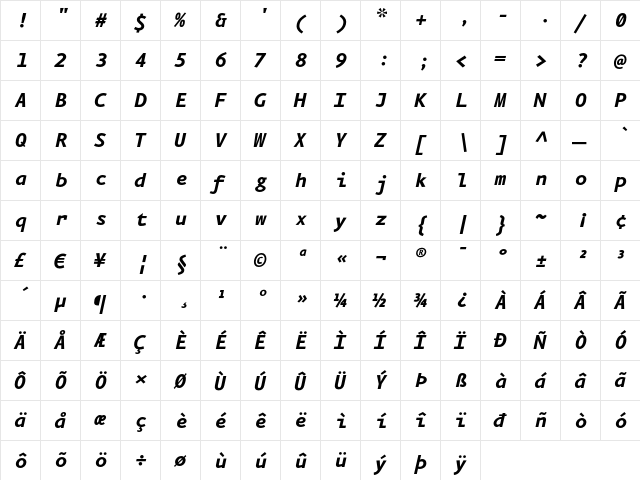
Eureka Mono Bold Italic Font Preview
Design Context for Eureka Mono Typeface
Eureka Mono uses fixed-width spacing throughout, giving it the structured, systematic character associated with coding environments and technical documentation. The slanted form adds forward momentum and visual energy. Its bold stroke weight gives it real presence on the page.
Pro Tip: Pair Eureka Mono with a proportional sans for UI contexts where code-style labels and regular body copy need to coexist.